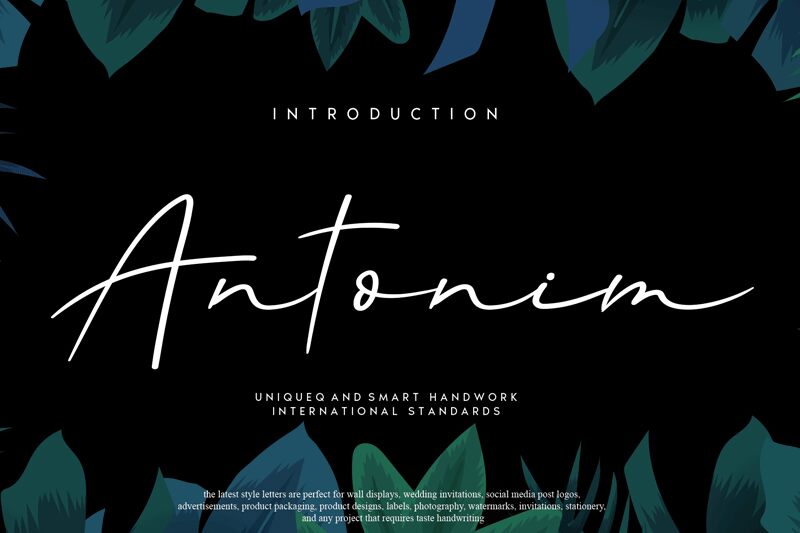
Antonim
Antonim, crafted by Belina Studio, is an exquisite handwritten signature font that exudes elegance and sophistication. With its light weight, this font adds a touch of delicate grace to any project. Ideal for wedding invitations, luxury branding, and high-end fashion magazines, Antonim effortlessly elevates your designs to new levels of refinement. Its fluid strokes and authentic feel create a sense of personal connection. Whether you're designing a logo for a luxurious hotel or creating captivating social media posts for a high-profile event, Antonim is the perfect choice to make your projects truly unforgettable.